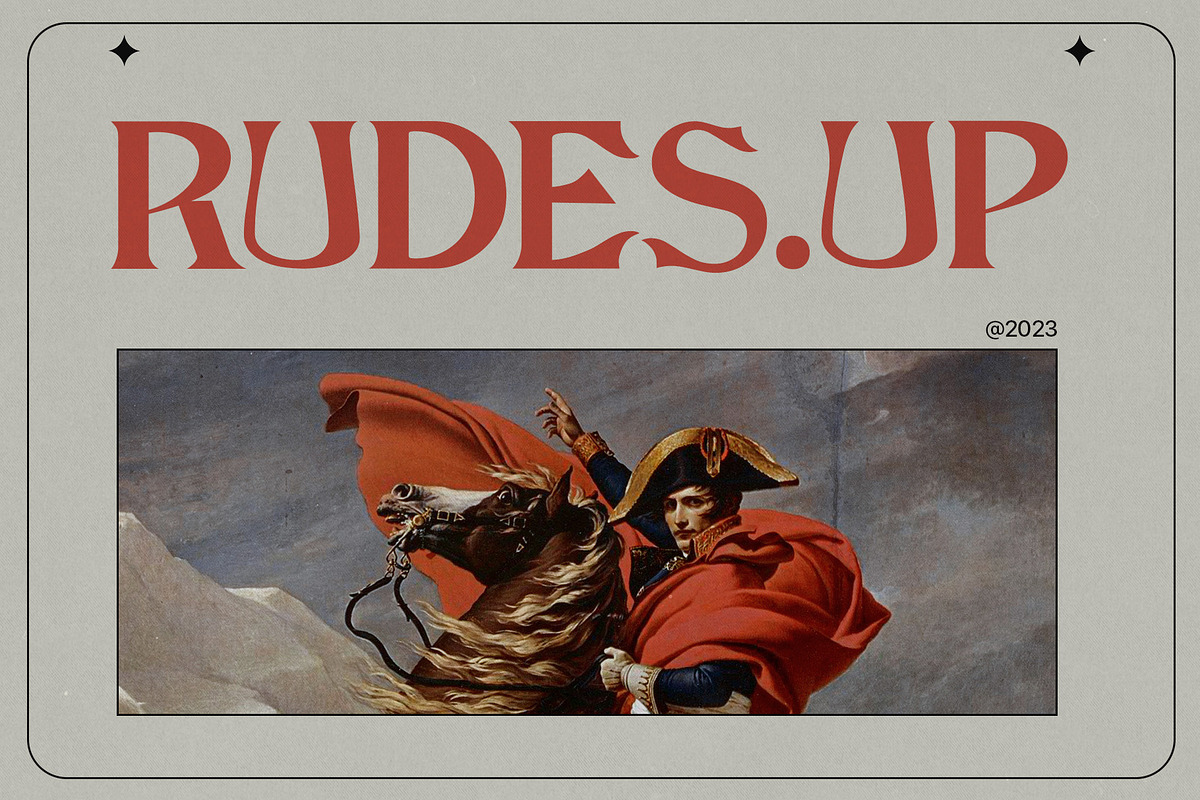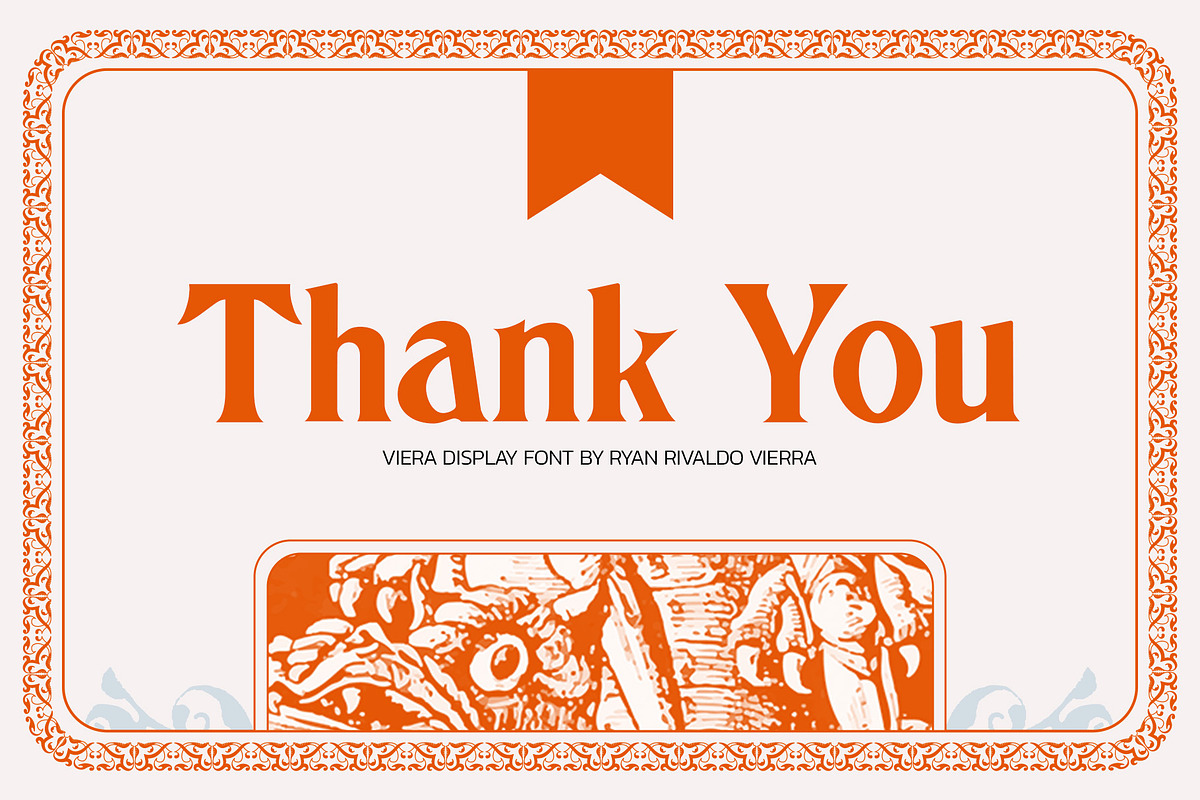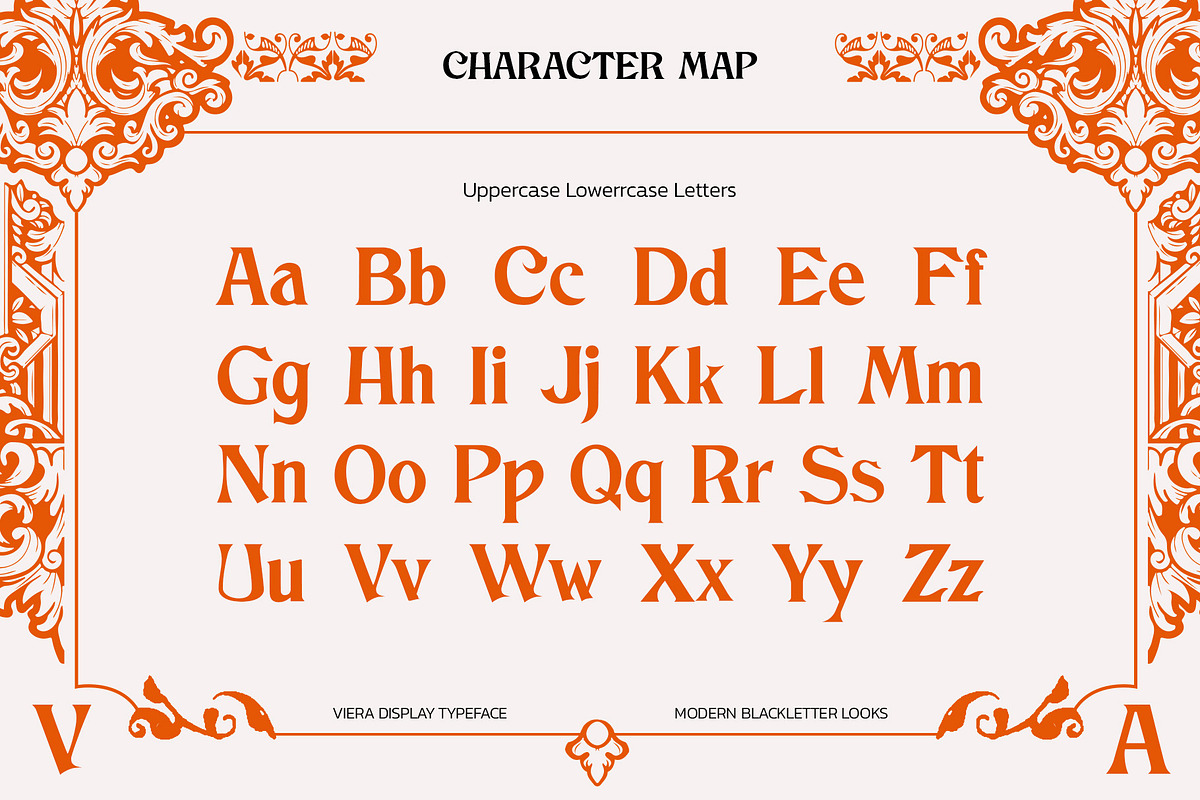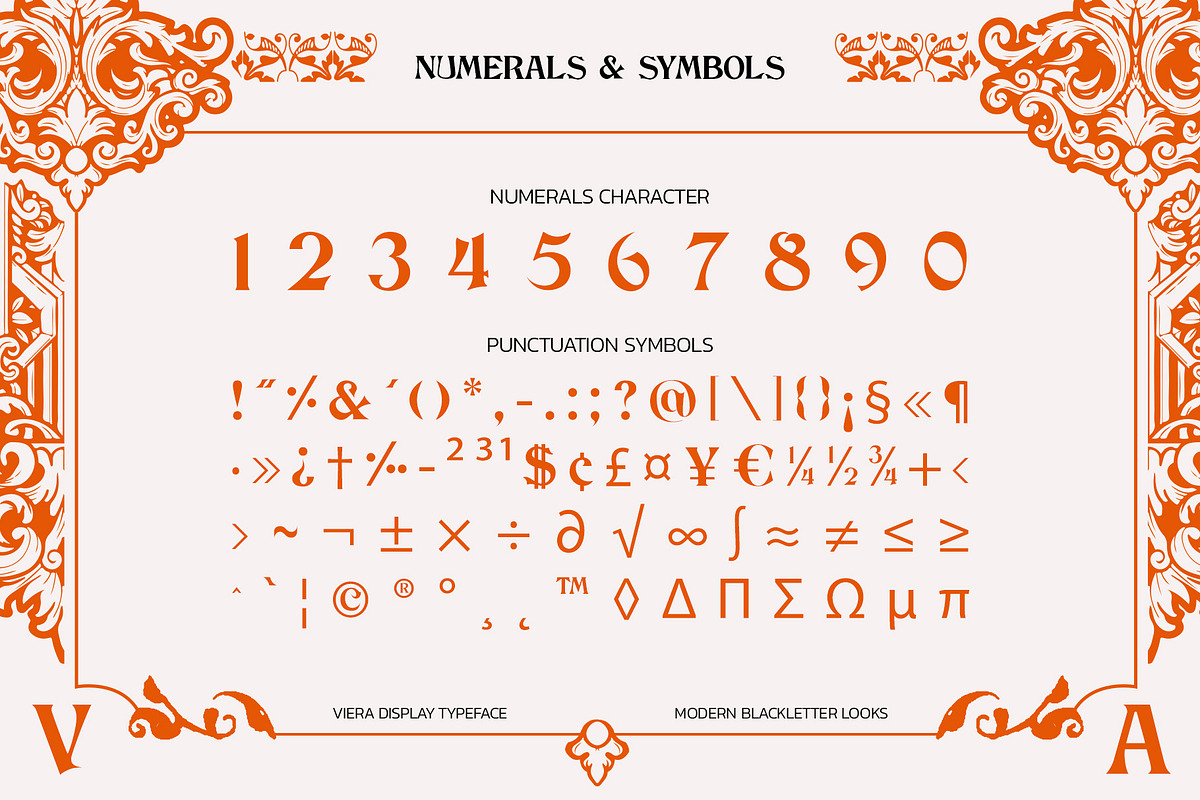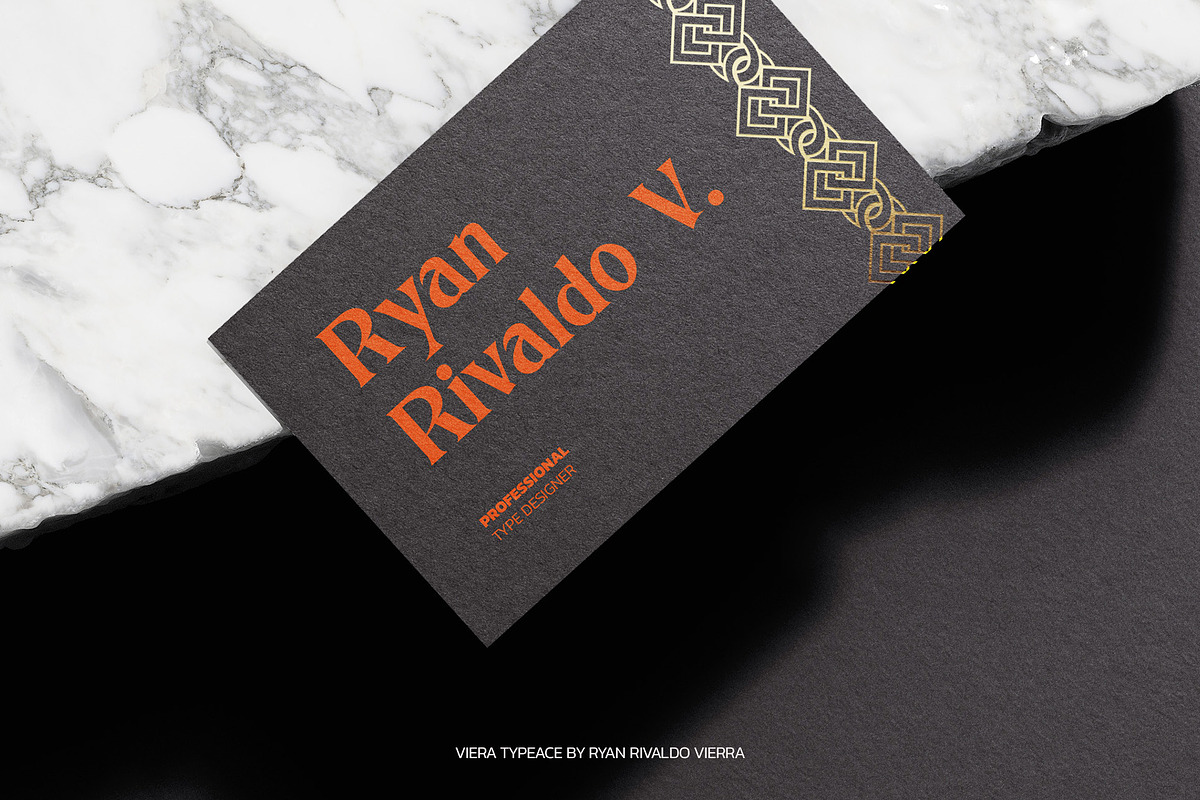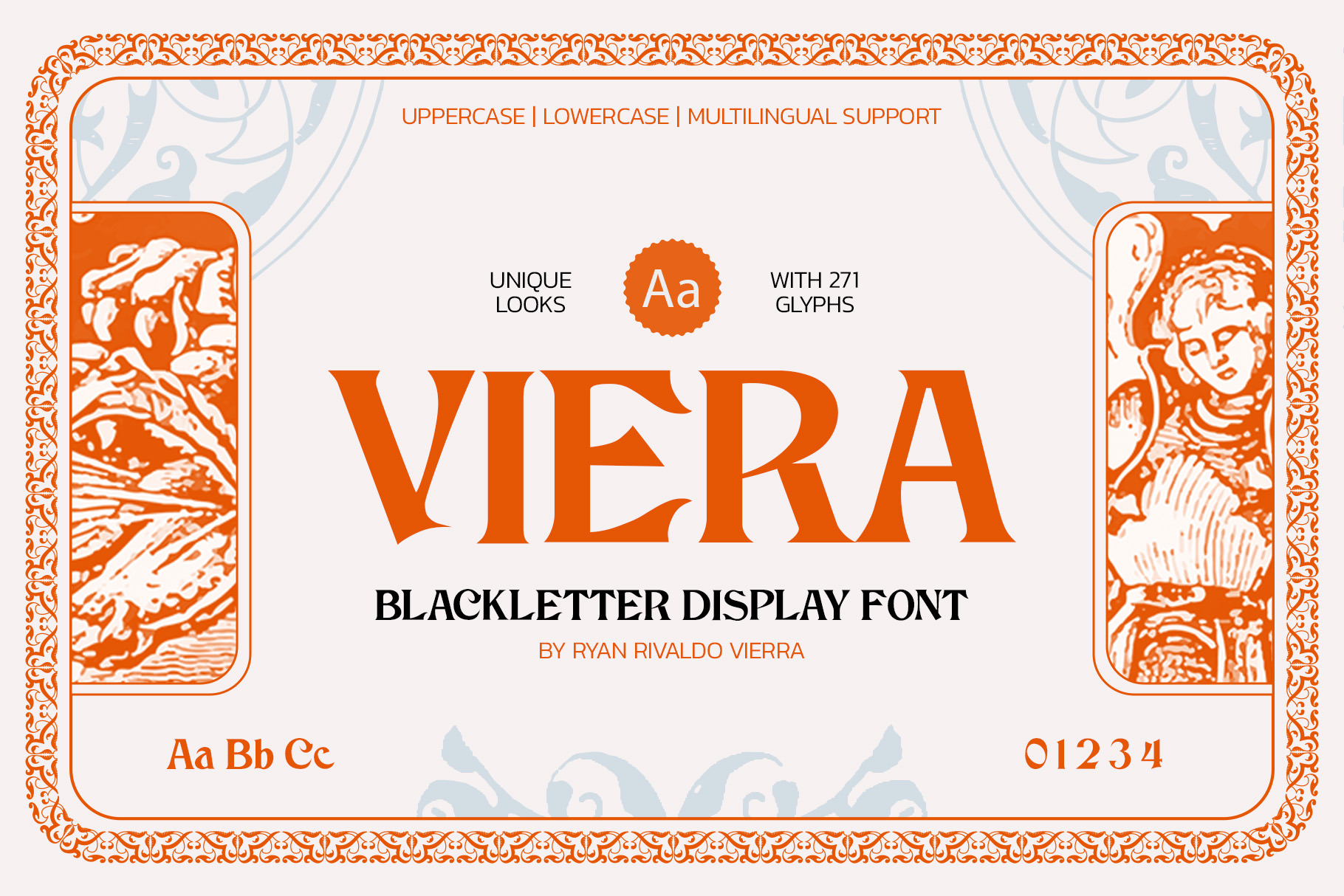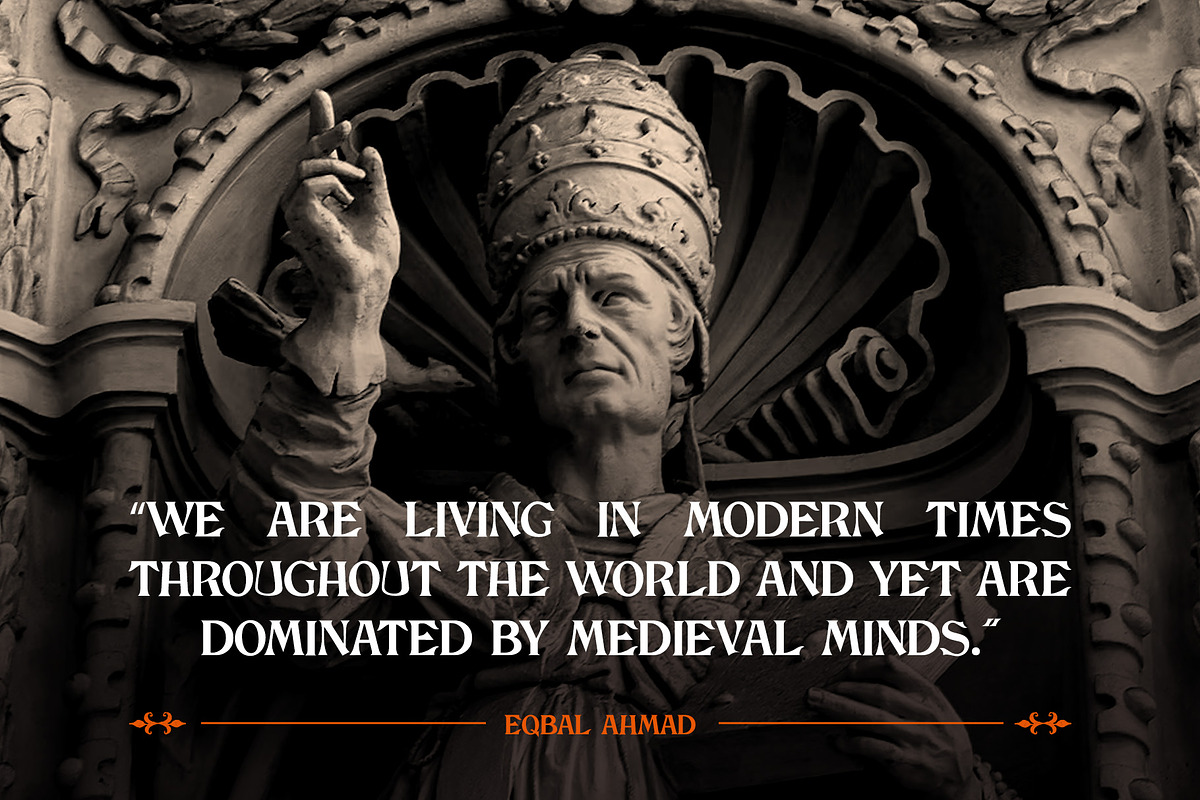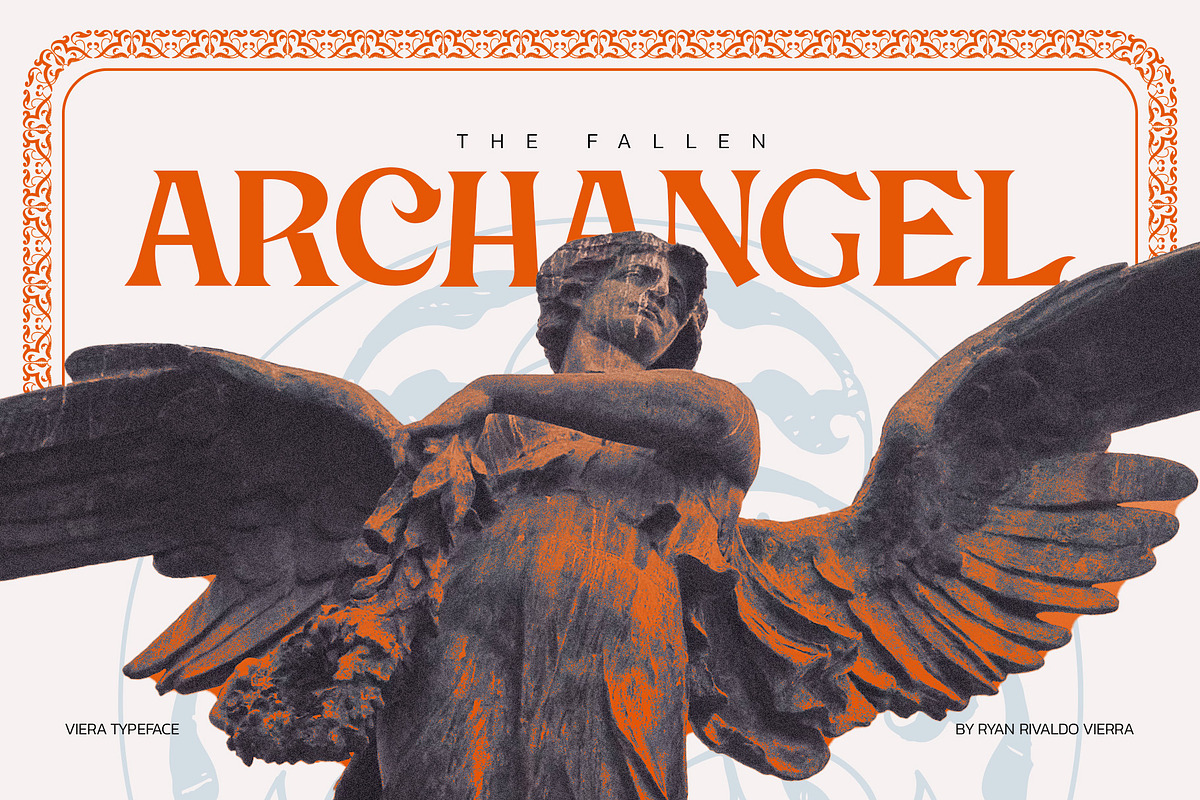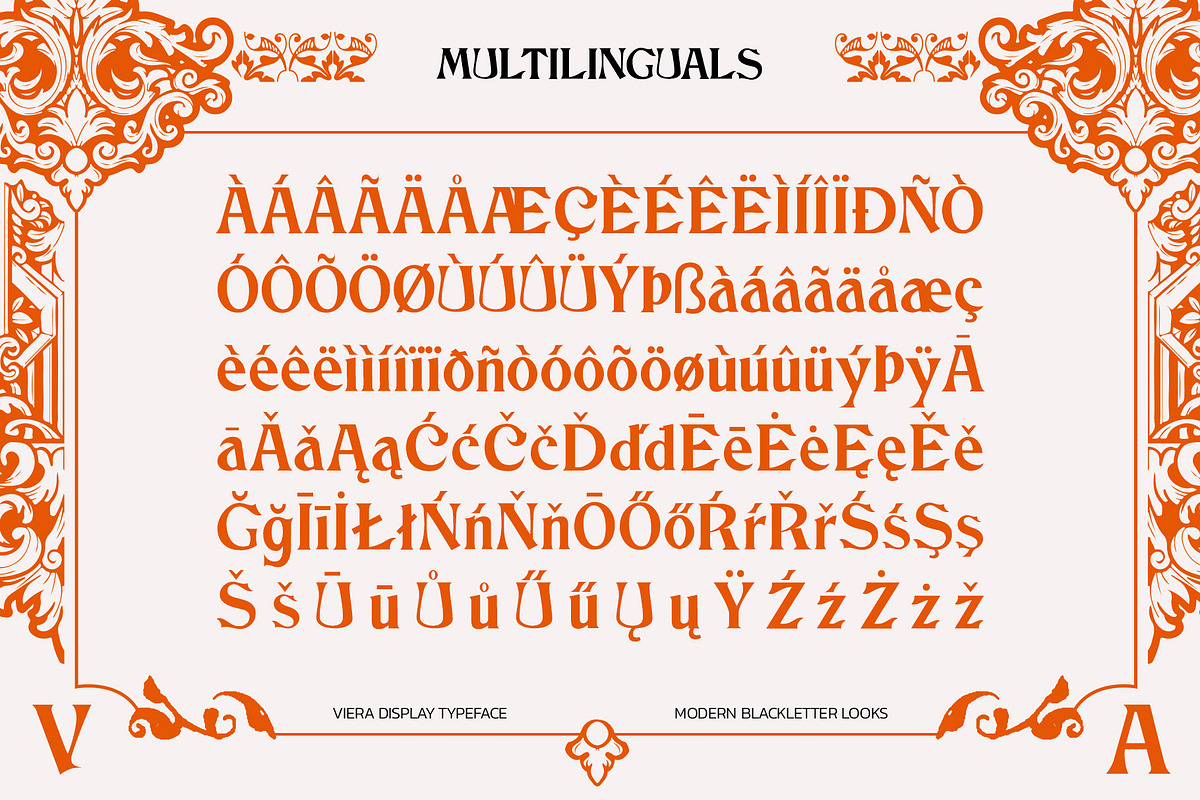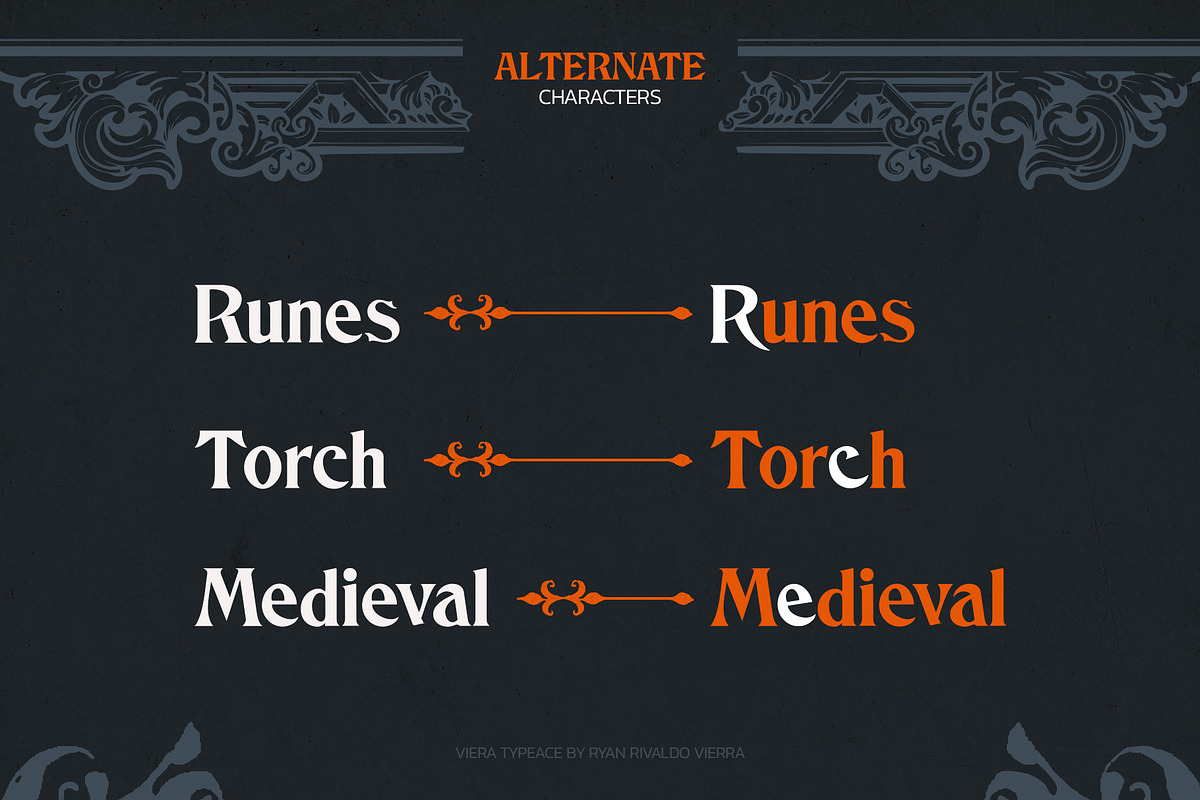
Viera Typeface
Viera" is a bestselling Black Letter-themed font product. With its elegant and bold design, Viera showcases thick letters with sharp and clear lines, creating a powerful and captivating appearance. This font combines the sophistication of classic Black Letter style with a modern touch, making it suitable for various creative projects such as logo design, posters, and other print products. Viera's uniqueness lies in its subtle details and the exclusive impression it offers, making it a favorite choice for designers and font users seeking a special and distinctive aesthetic.
This font is named after its creator, Viera, who is Ryan Rivaldo Vierra. It can be used for various modern, classic, minimalist, and other designs. It reflects my personal style as the creator